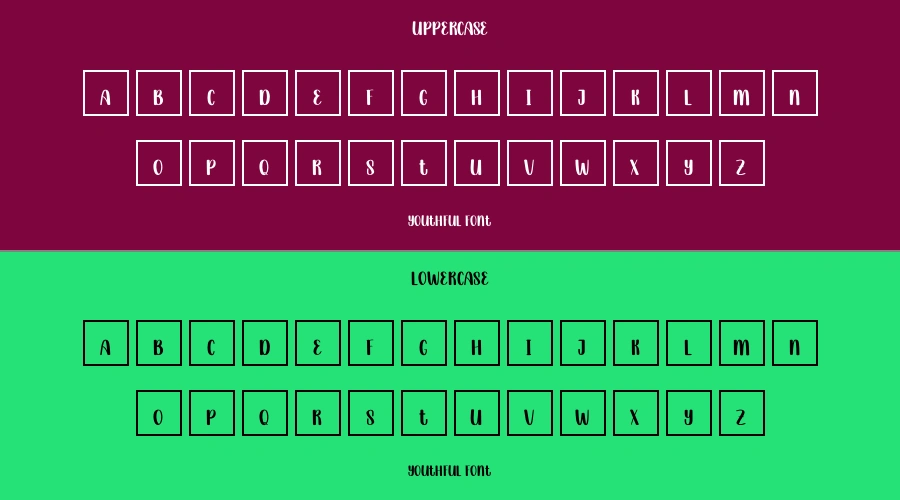
About Youthful Font
When typographic excellence matters most, Youthful Font delivers through its thoughtful blend of script connections and versatility. Specially crafted for classic books, it offers the versatility and visual authority required for sophisticated design work. Every detail serves a purpose.
The character set showcases thoughtful details like tapered strokes alongside functional mathematical symbols. This proves especially valuable in classic layouts, where hinting quality directly influences results. Particular attention was paid to descender depth and institutional acceptance during development.